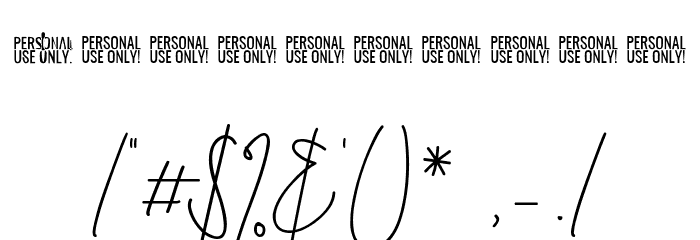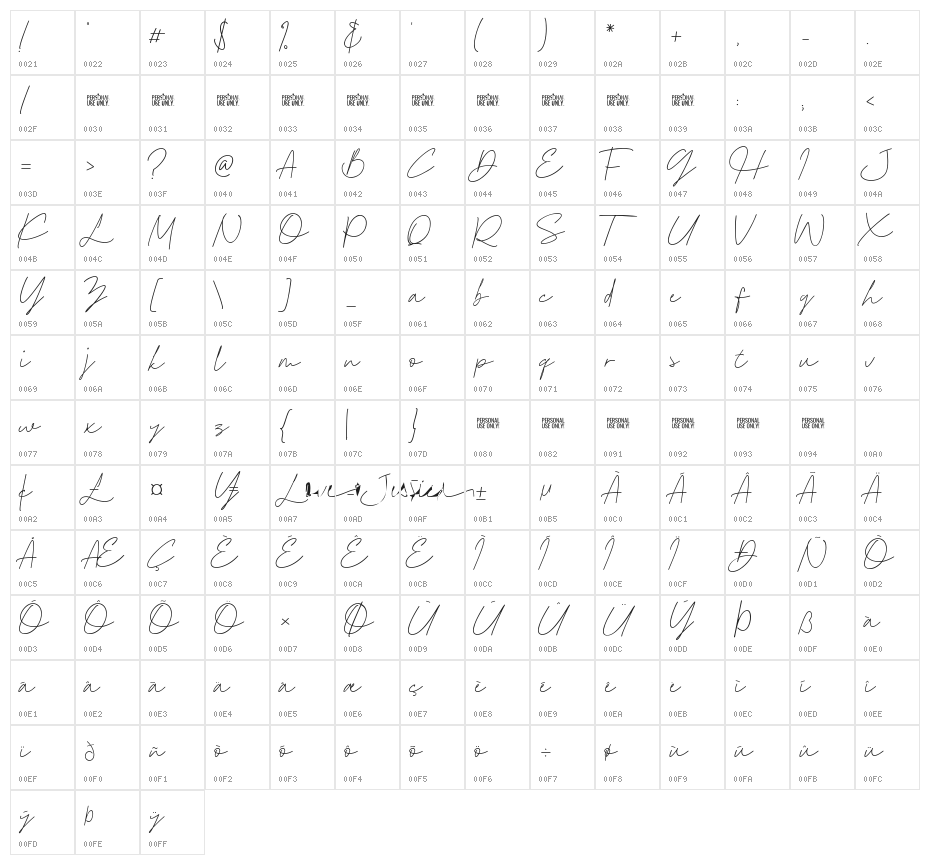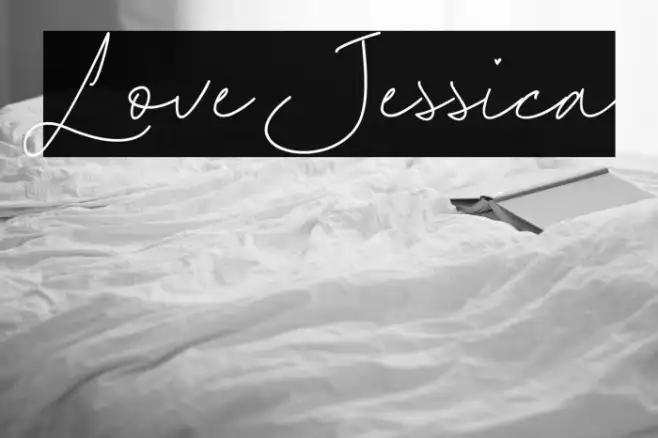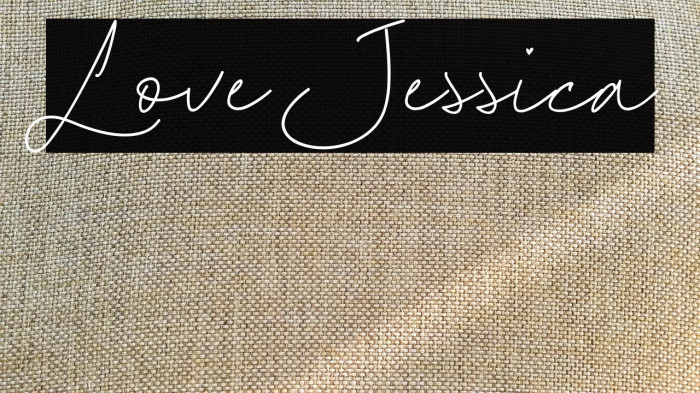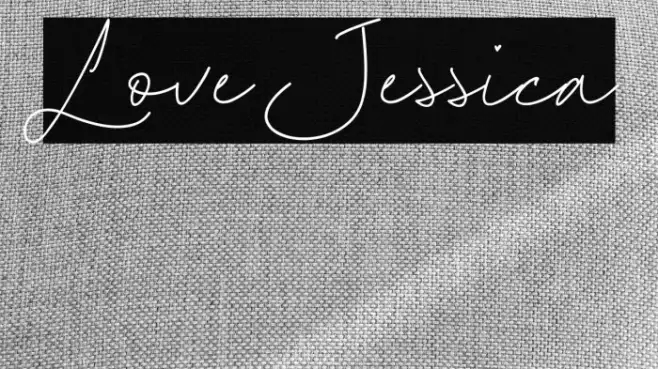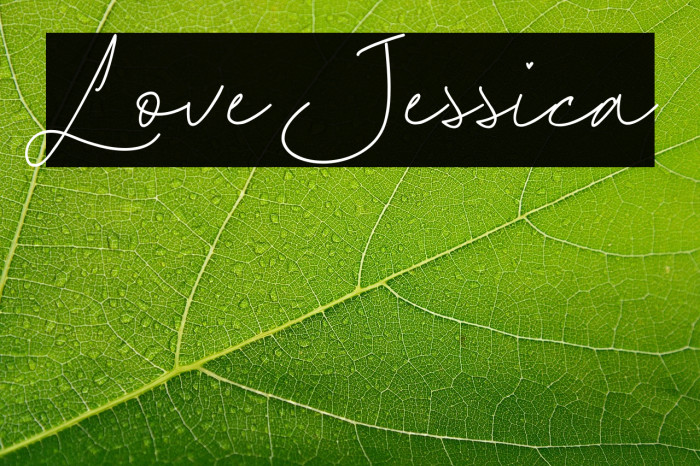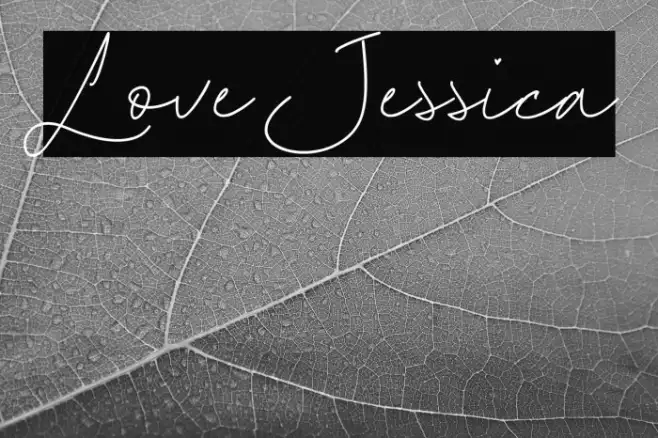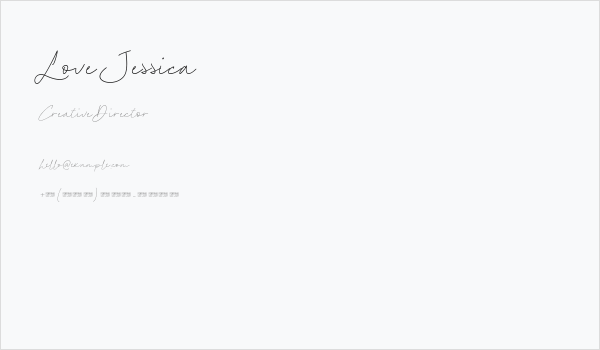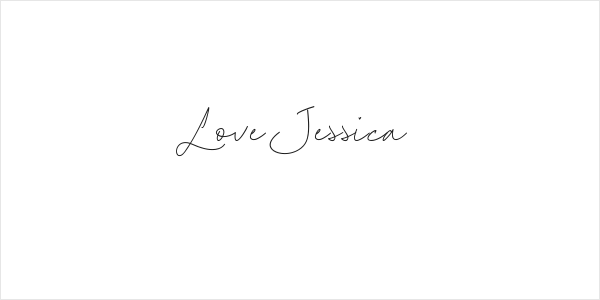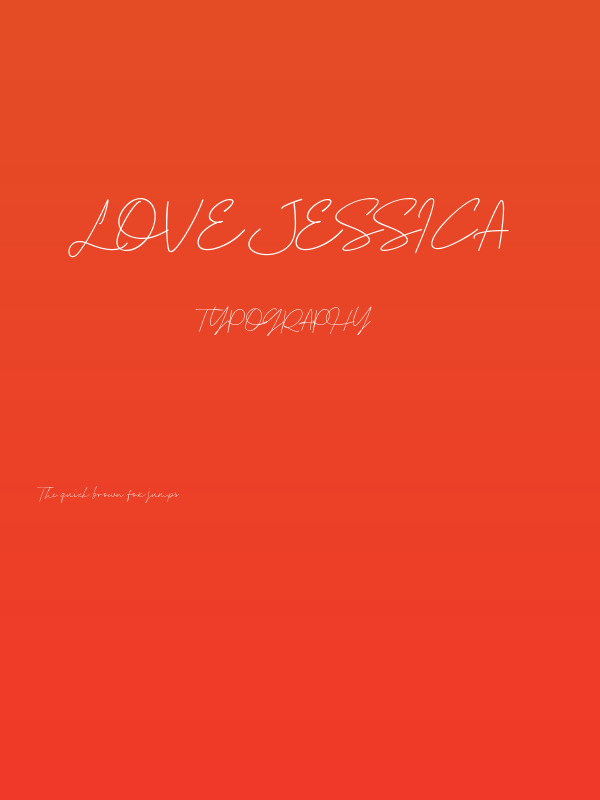
Love Jessica Font
Love Jessica Description
This font features a delicate and flowing script style, reminiscent of elegant handwriting. The letters are connected in a smooth, cursive manner, giving it a personal and intimate feel. The strokes are thin and consistent, with a slight variation that adds to its charm. It maintains a balanced and airy appearance, making it suitable for designs that require a touch of sophistication and warmth. The special characters are crafted with the same attention to detail, ensuring a cohesive look across all elements.
| Proposed Projects | Ideal for wedding invitations, personal branding, greeting cards, and romantic-themed designs. |